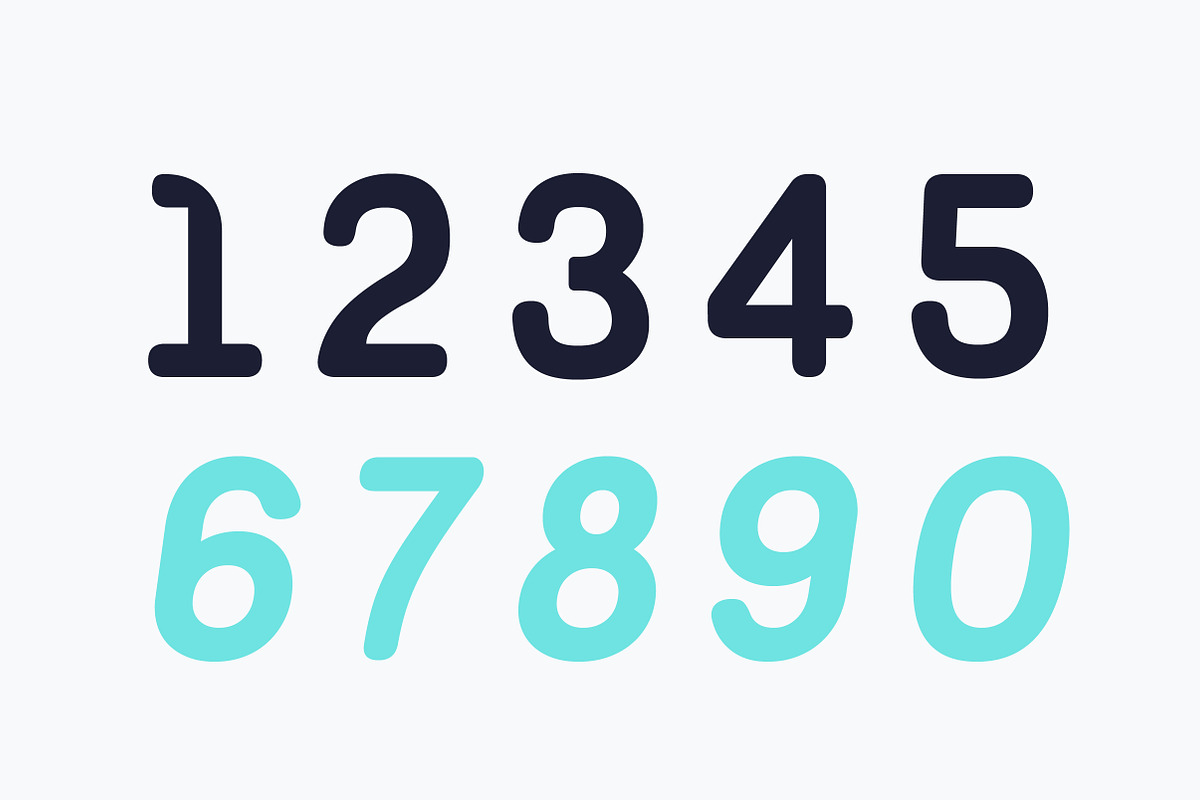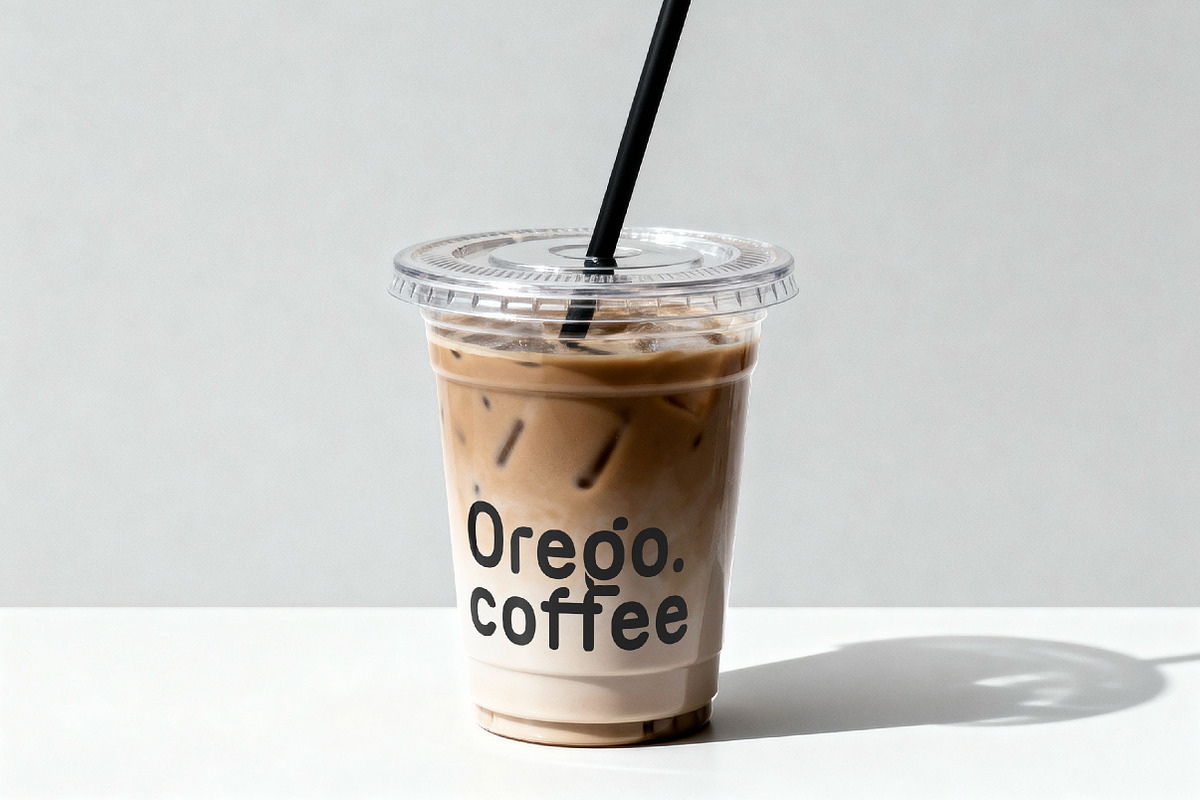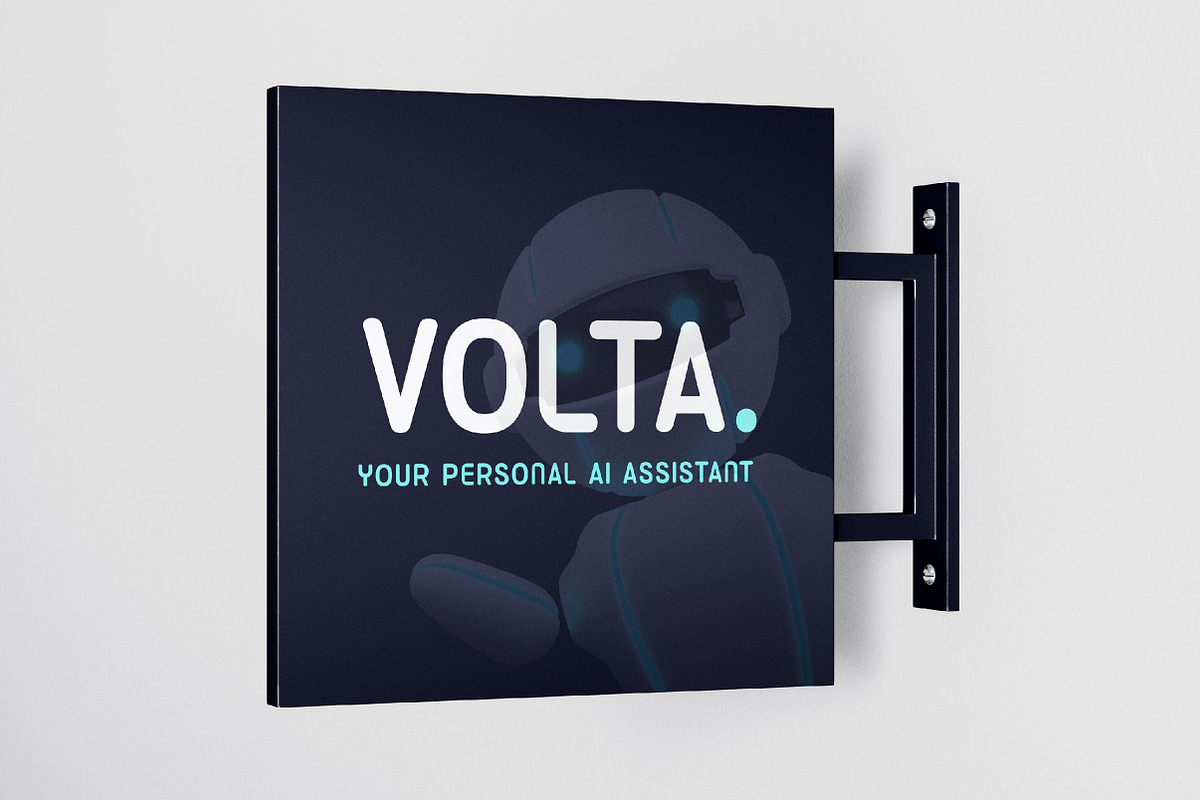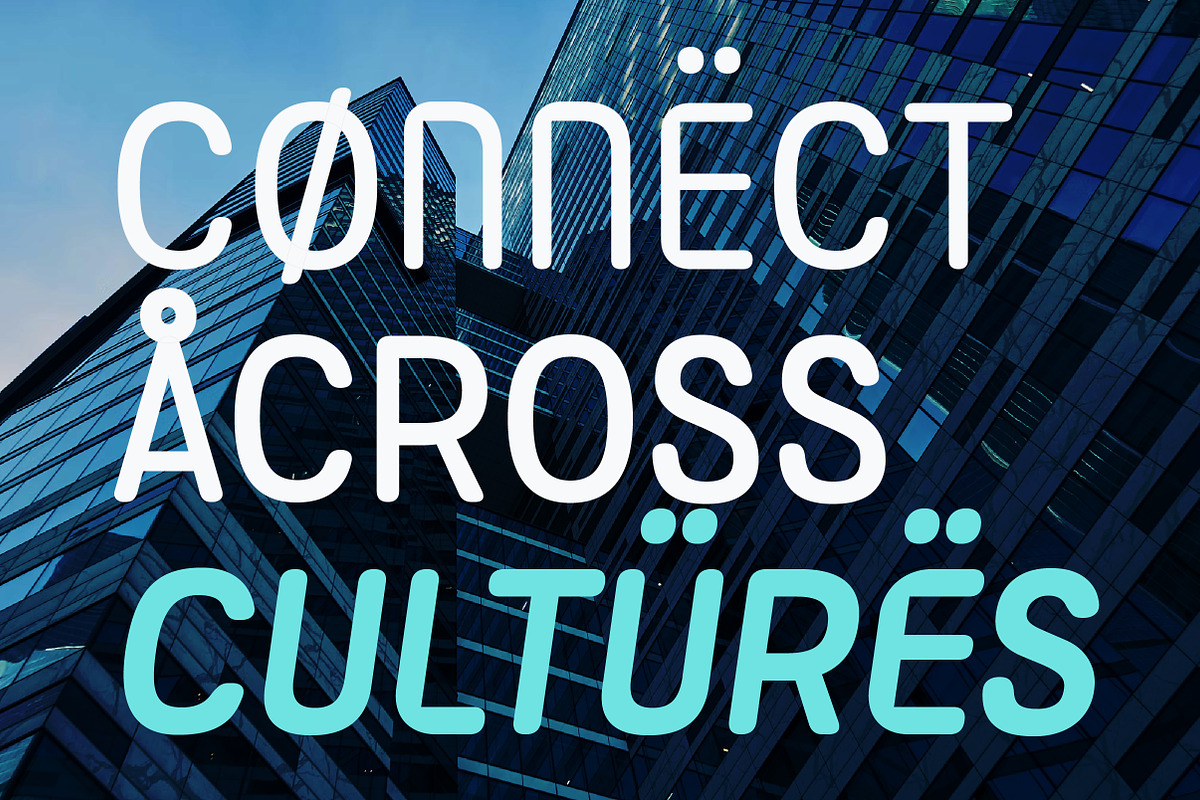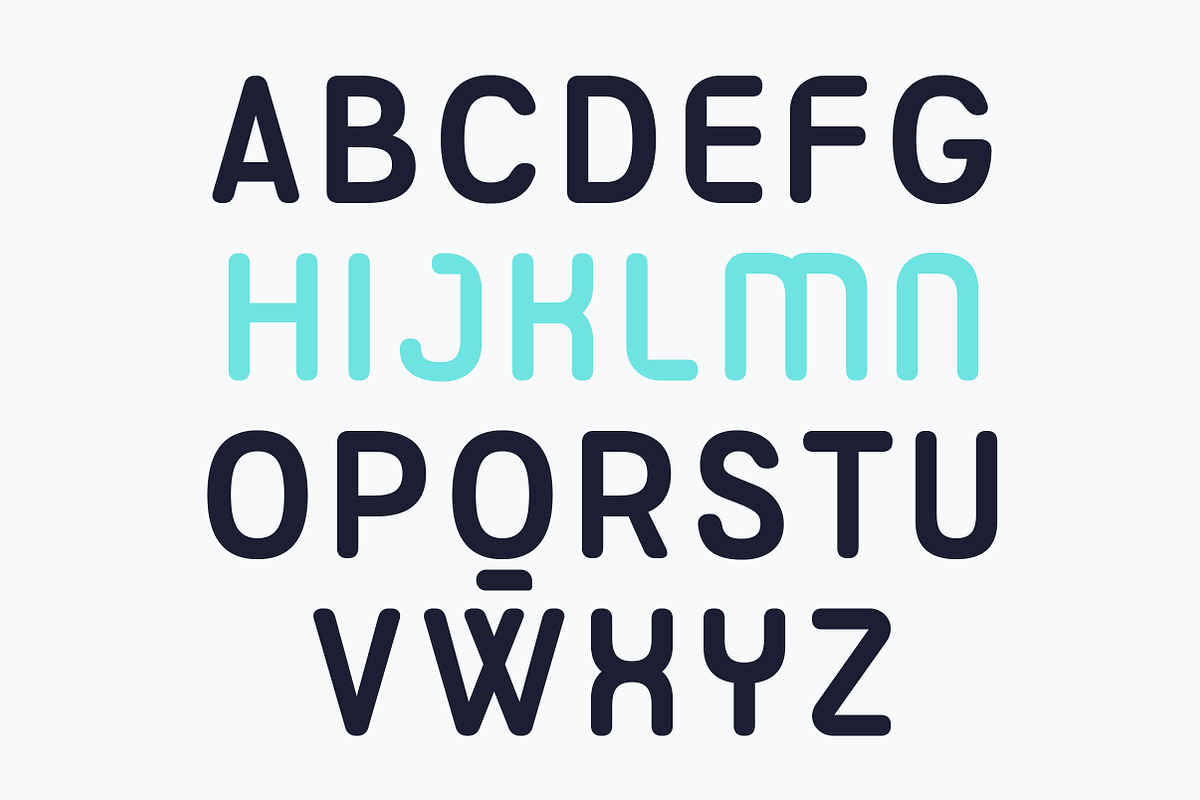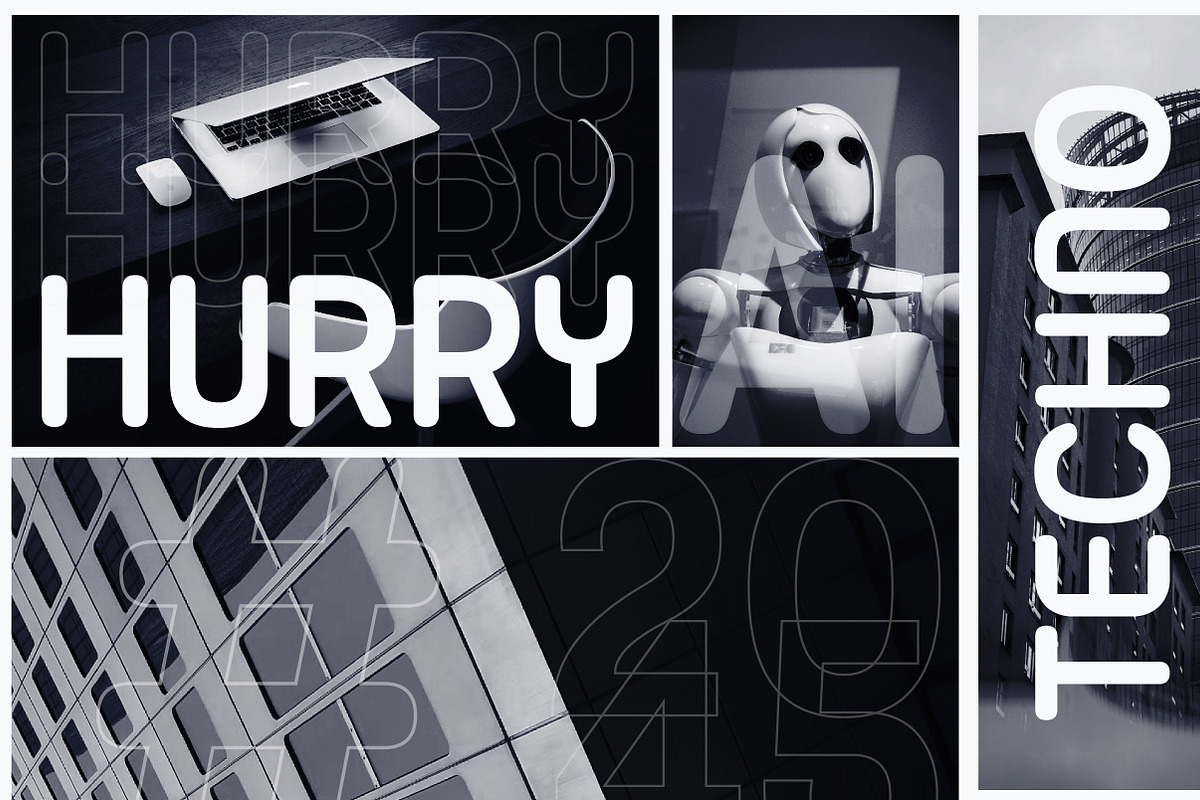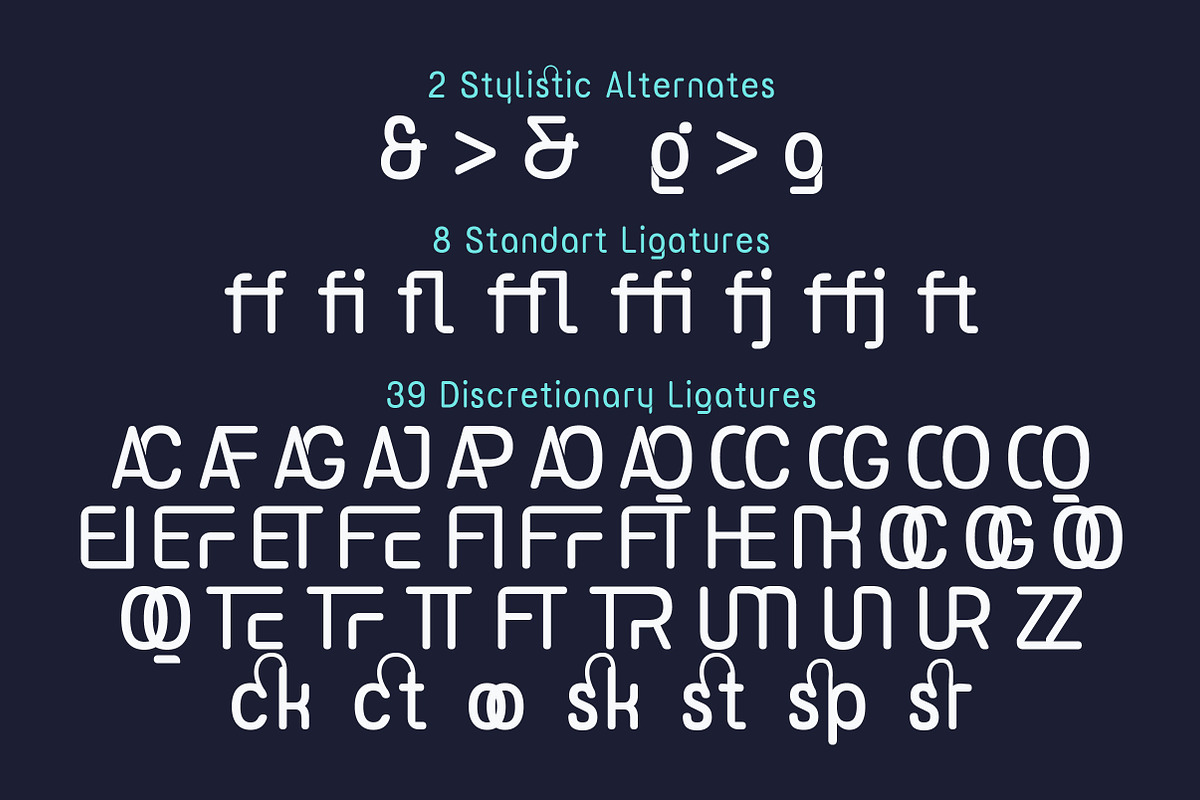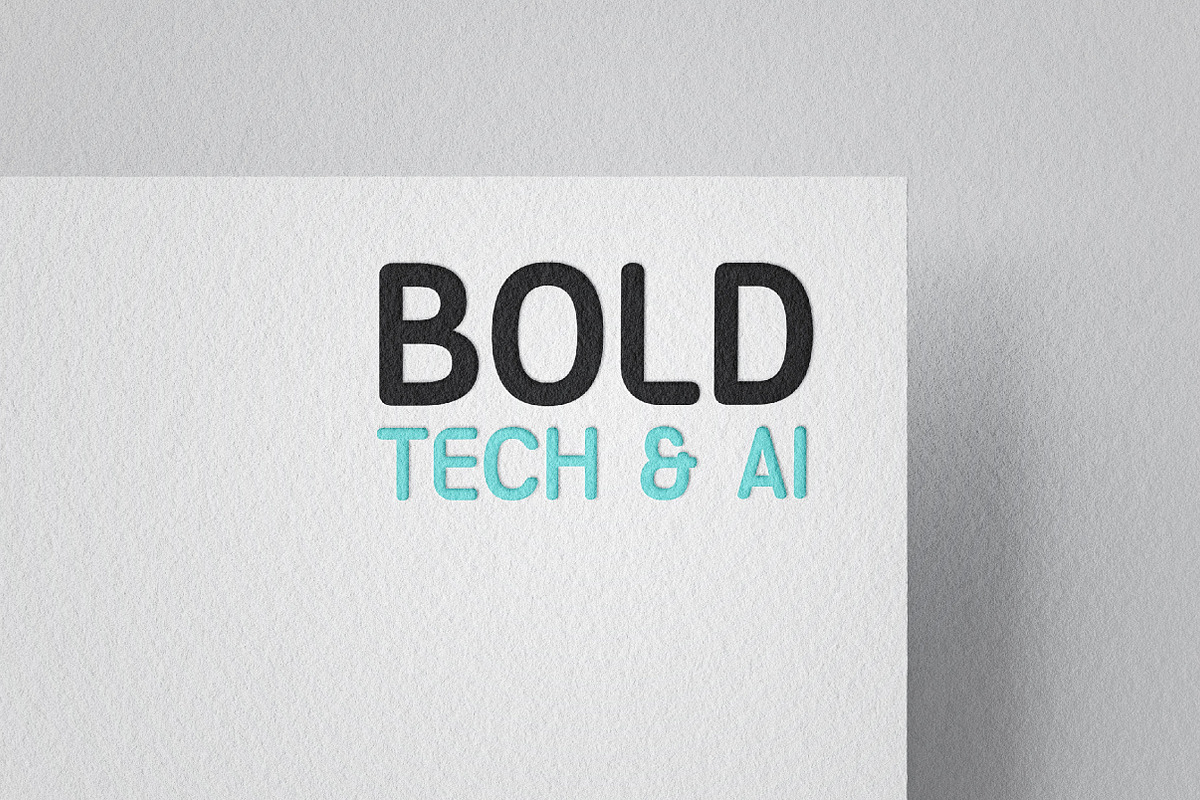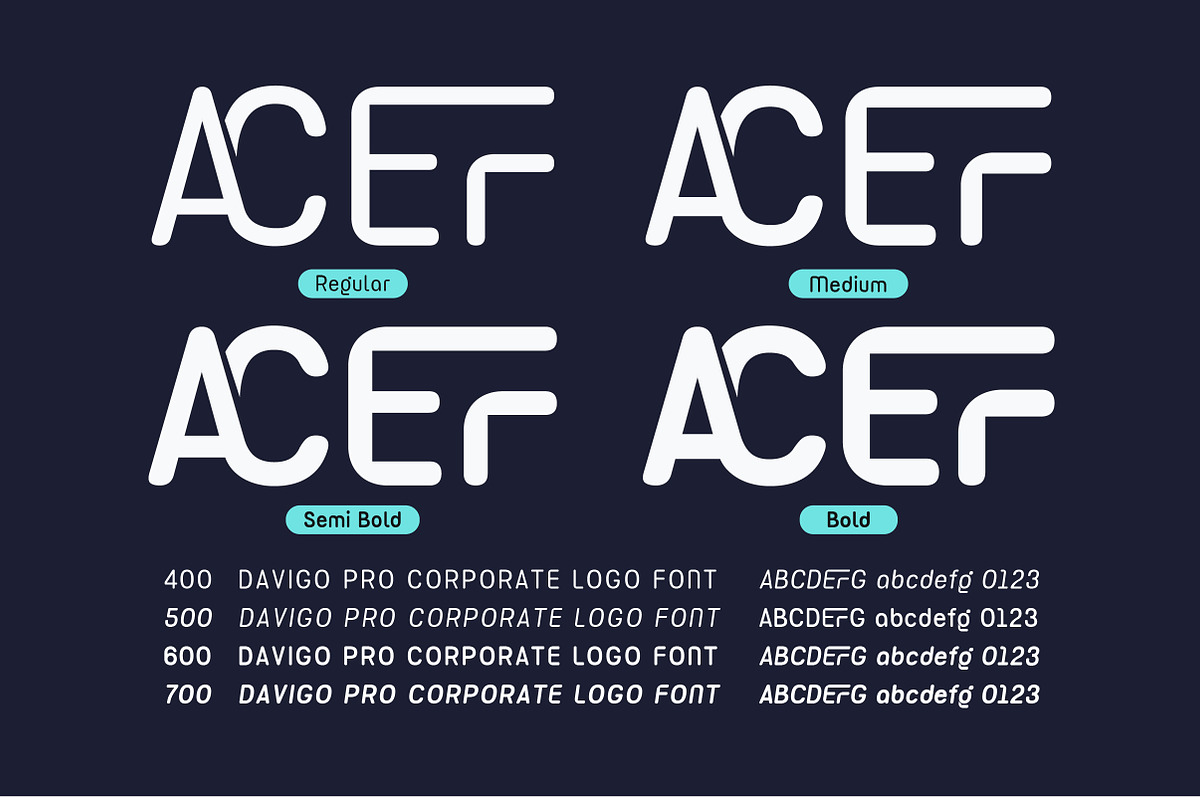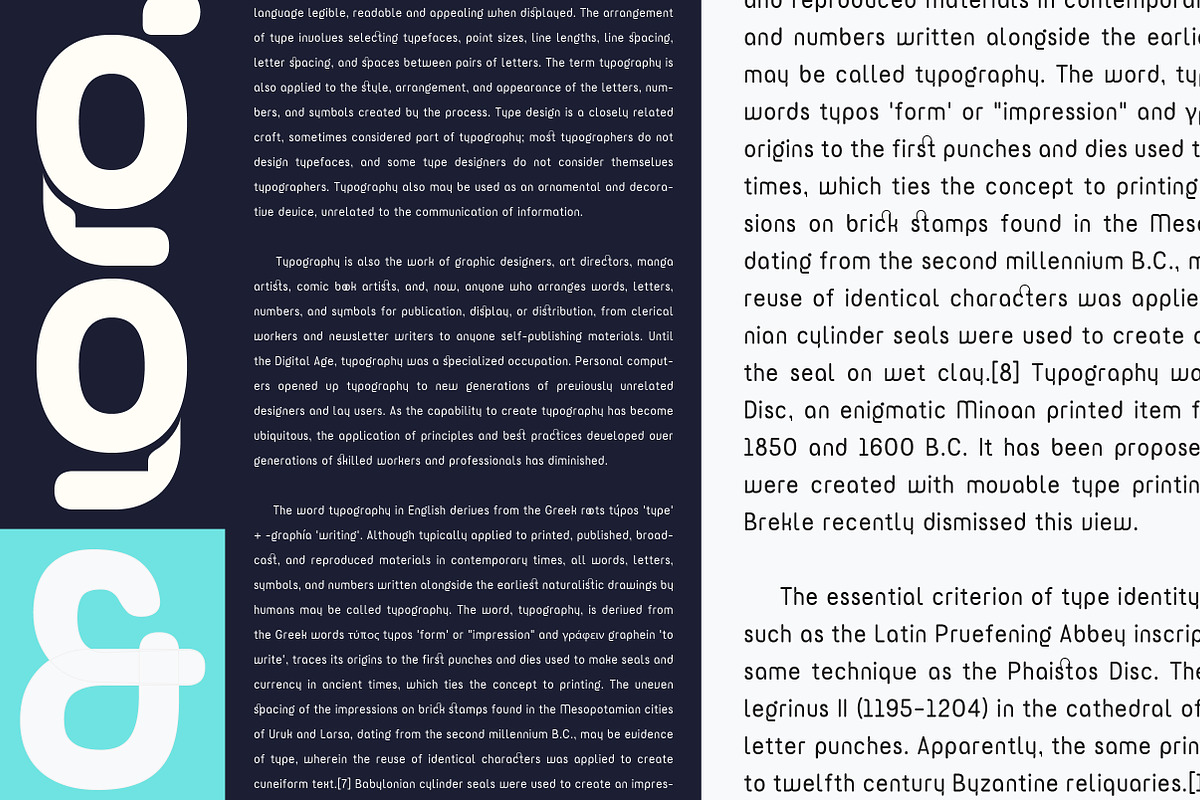
Davigo Pro a Modern Rounded Fonts
Davigo Pro is the newest evolution of the Davigo type family, re-engineered with a refined rounded treatment that introduces a softer, more fluid visual character. The updated letterforms are carefully reshaped to enhance readability while delivering a warm, contemporary presence. Its balanced proportions and smooth terminals create a modern aesthetic that feels both premium and approachable.
Designed for flexibility, Davigo Pro adapts effortlessly across branding ecosystems — from primary logo marks to supporting visual identities. The subtle feminine nuance within its curves makes it especially powerful for lifestyle, beauty, and hospitality brands while maintaining enough structure for professional and commercial applications.
Davigo Features:
- 8 Styles
- Upright & Oblique
- 498 Glyphs Total
- 270+ Languages Supports
- Beauty & Skincare Branding
- Café & Food Packaging
- Fashion & Boutique Logos
- Cosmetic Product Design
- Lifestyle & Social Media Branding